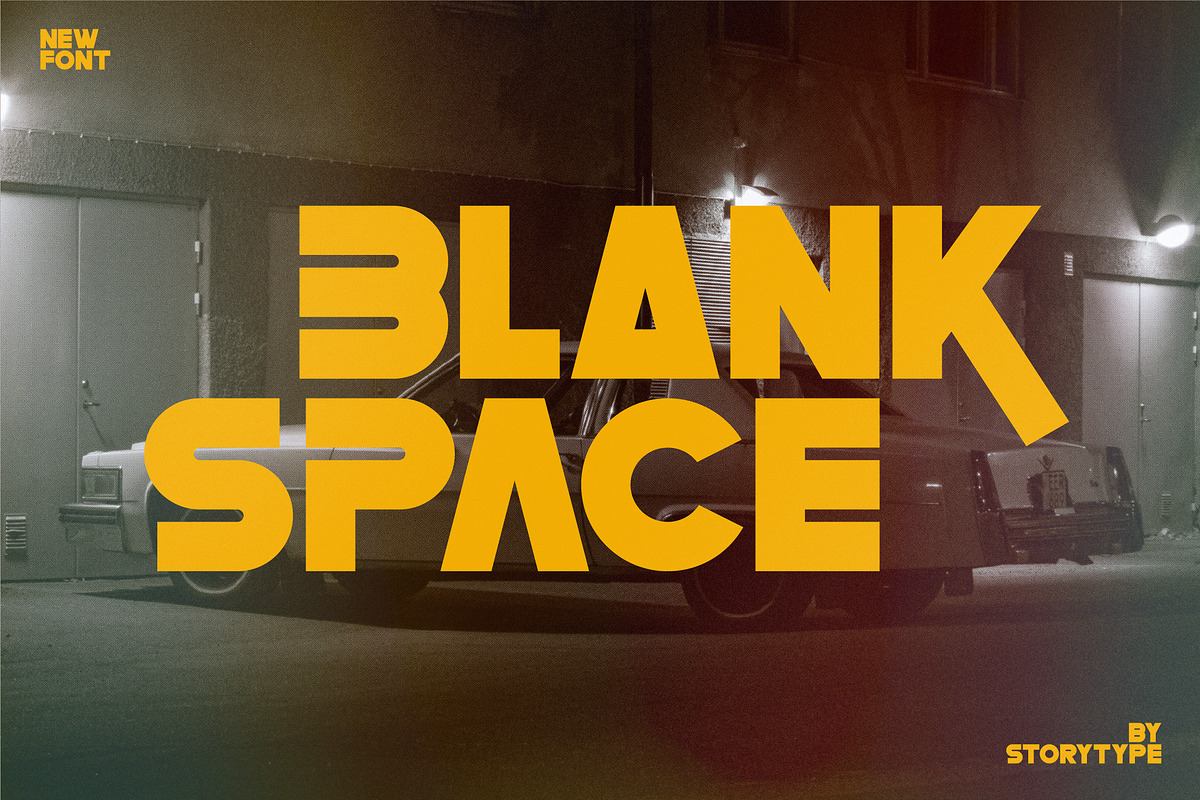
Blank Space Typeface Font Free Download is a sleek, modern display font with a minimalist design and a futuristic edge. With clean lines, spacious letterforms, and a refined geometric style, this font is perfect for tech branding, fashion editorials, music artwork, digital product design, and modern logos. It embraces negative space beautifully, creating a sophisticated and contemporary look.
Ideal for headlines, posters, and bold statements, Blank Space adds clarity and impact to your visuals while maintaining a sleek, understated elegance. It’s a go-to choice for creatives who want to blend simplicity with forward-thinking style.